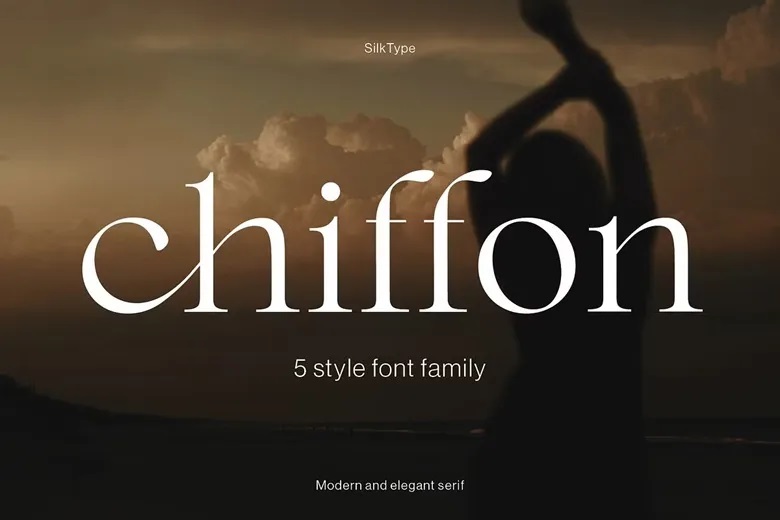
Chiffon is a modern serif font family with high contrast and very elegant curves all throughout the characters. Chiffon has three variants of ‘c’ and ‘e’ and these have been integrated in the typeface at strategic locations in combination with the next glyph.
Nevertheless, OpenType features and stylistic sets enable the alternate forms for selection by the user to choose the desired one. Chiffon comes in five styles: Extra light, Light, Regular, Medium and Semi bold, and provides support for the Western, Central and South Eastern European languages.
Chiffon Serif Font Family